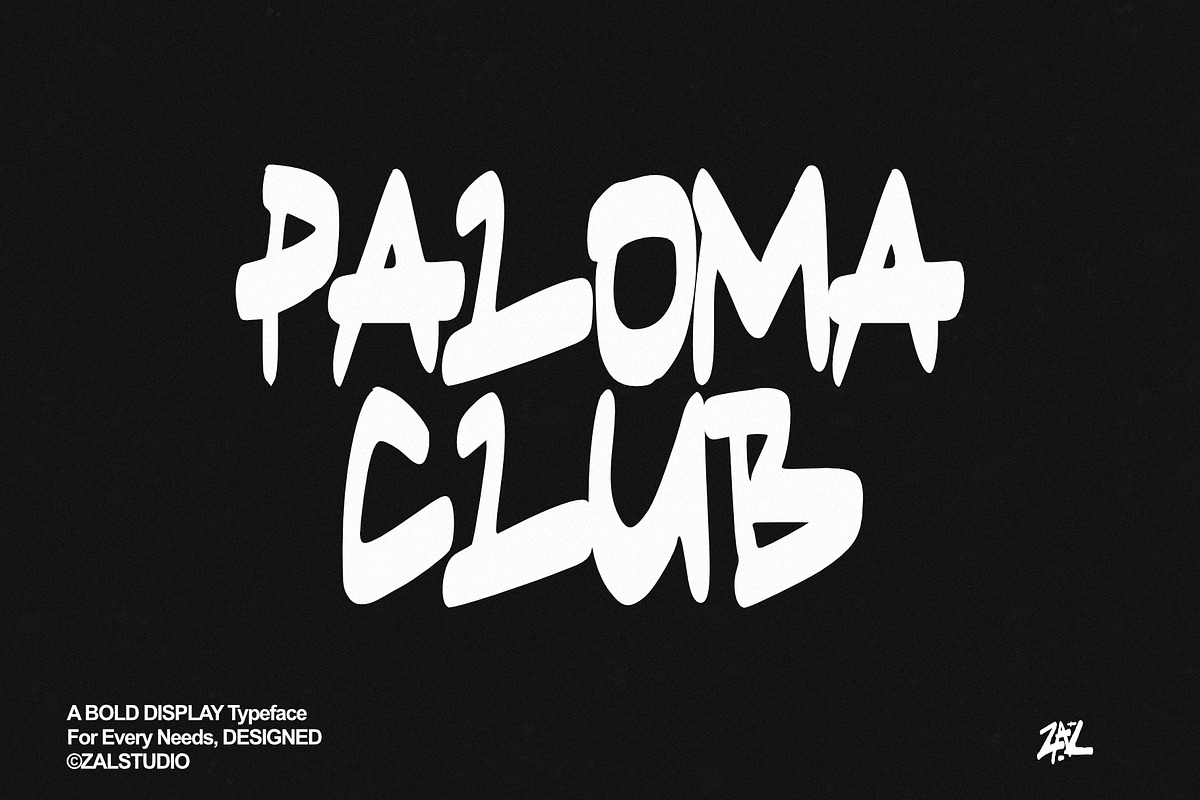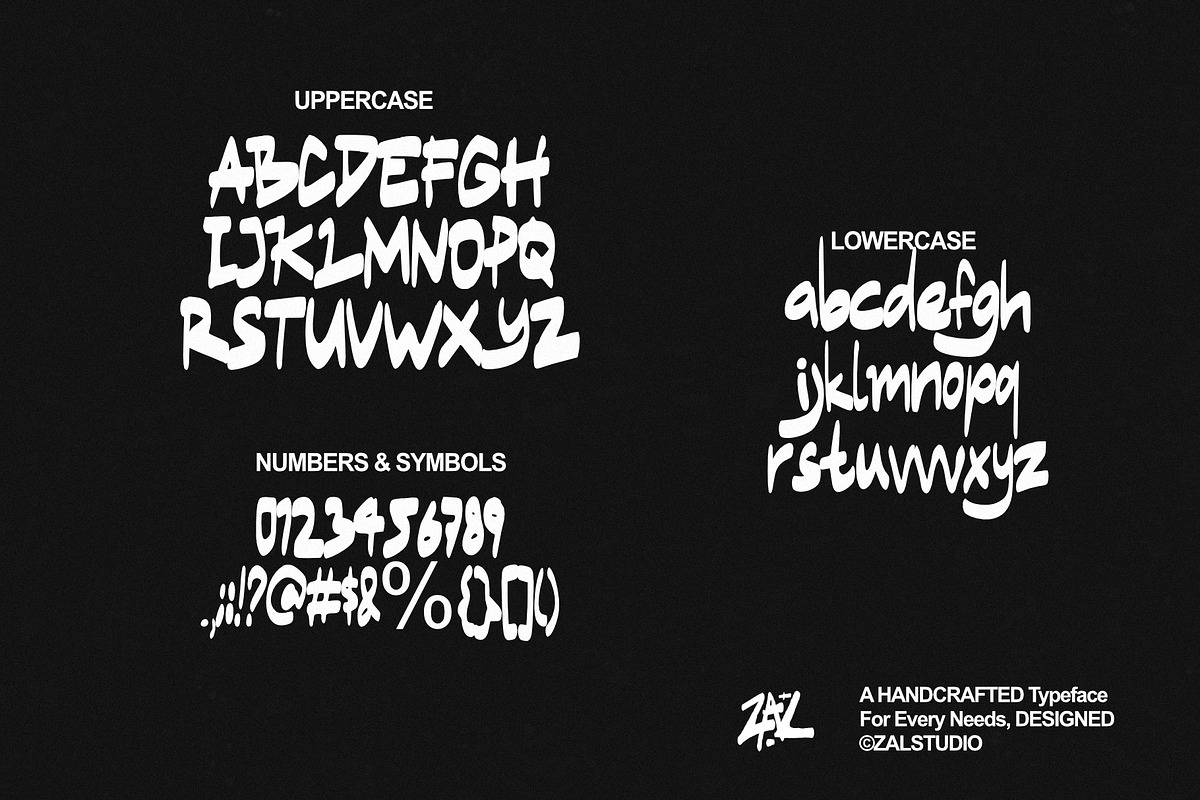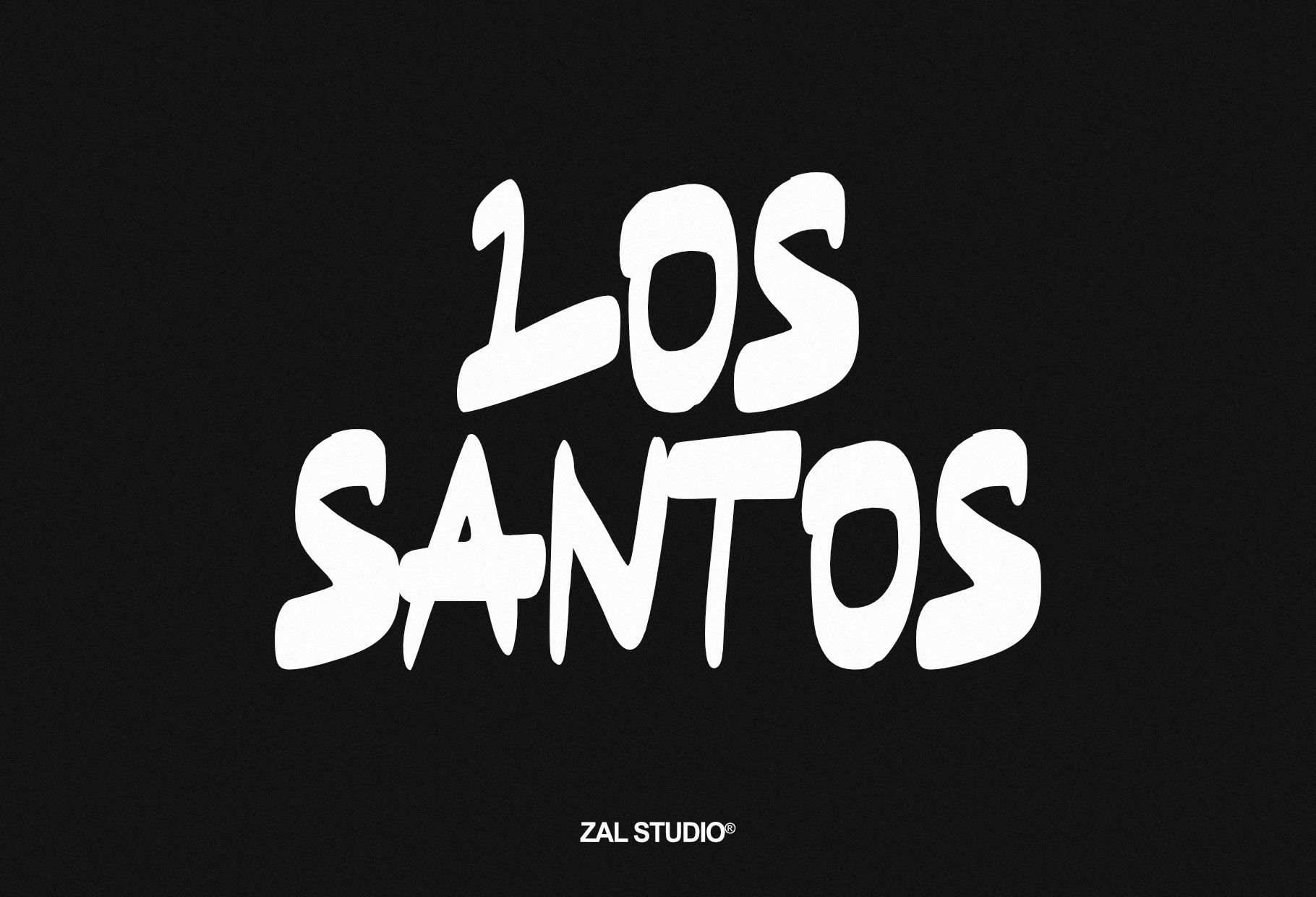
Los Santos - Display Typeface
Los Santos is a bold and expressive display typeface designed to make headlines, logos, posters, and branding instantly stand out. With its strong visual character and impactful letterforms, Los Santos brings a confident, modern, and versatile style to both digital and print projects.
Perfect for designers looking for a bold display font that works beautifully across branding, advertising, editorial layouts, merchandise, and creative graphics.
Bold and eye-catching display letterforms
Perfect for headlines, titles, and poster designs
Great for logos and brand identity projects
Suitable for packaging, apparel, and merchandise
Ideal for posters, flyers, social media, and advertising
Works well for editorial and creative typography
Versatile font for both personal and commercial design projects
Logo & Branding
Posters & Flyers
T-Shirts & Apparel
Advertising & Marketing
Editorial Design
Album & Cover Artwork
Headlines & Titles
Creative Typography